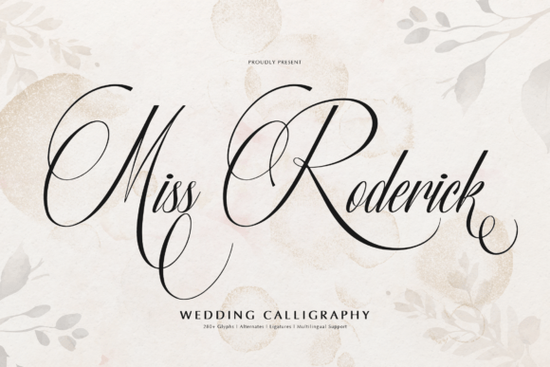
If you're looking for a font that exudes elegance and charm, Miss Roderick Font is an excellent choice. This stunning wedding calligraphy font is designed to add a touch of sophistication and romantic flair to any project. Whether you're designing formal invitations, elegant branding, or upscale stationery, Miss Roderick can help you create something truly special.
Why Choose Miss Roderick for Your Design Projects?
Miss Roderick stands out with its graceful loops, refined thin strokes, and high contrast lines. These features make it perfect for projects that require a touch of class and elegance. The font includes over 280 glyphs, stylistic alternates, ligatures, and multilingual support, making it both beautiful and versatile. It's an ideal choice for bridal suites, heartfelt quotes, and signature-style logos.
Perfect for Wedding Invitations
Wedding invitations are one of the most important elements of any wedding. They set the tone for the event and give guests a glimpse of what to expect. Miss Roderick is a fantastic option for creating invitations that are not just beautiful but also memorable. Its elegant style and romantic flair make it a top choice for designers and couples alike.
Versatility in Branding and Stationery
Beyond wedding invitations, Miss Roderick is versatile enough to be used in a variety of other design projects. For instance, it can add a touch of elegance to your branding materials, such as business cards, letterheads, and promotional materials. Additionally, it's perfect for creating upscale stationery, like thank-you notes, greeting cards, and more.
Stylistic Alternates and Ligatures
One of the standout features of Miss Roderick is its inclusion of stylistic alternates and ligatures. These options allow you to customize your designs and add unique touches. Stylistic alternates provide different versions of certain characters, while ligatures combine multiple characters into a single, fluid form. This flexibility makes it easier to create designs that feel personalized and polished.
Multilingual Support
In today's globalized world, having a font that supports multiple languages is a significant advantage. Miss Roderick includes multilingual support, making it a great choice for international projects. Whether you're designing for a local audience or a global one, this font can help you reach a wider range of people.
Comparison with Other Script Fonts
How to Use Miss Roderick in Your Designs
Incorporating Miss Roderick into your designs is straightforward. Here are a few tips to get you started:
- Choose the Right Context: Use Miss Roderick for projects that require a touch of elegance, such as wedding invitations, formal branding, and upscale stationery.
- Experiment with Stylistic Alternates and Ligatures: Take advantage of the font's stylistic alternates and ligatures to add unique and personalized touches to your designs.
- Combine with Complementary Fonts: Pair Miss Roderick with simpler, more legible fonts to create a balanced and visually appealing design.
- Test on Different Backgrounds: Make sure the font looks good on various backgrounds, whether it's a solid color, a pattern, or a photograph.
Practical Checklist for Using Miss Roderick
To ensure you get the most out of Miss Roderick, here’s a quick checklist:
- Experiment with different sizes and styles to find the best fit for your project.
- Use stylistic alternates and ligatures to add unique touches.
By following these steps, you can create stunning and elegant designs with Miss Roderick Font. Whether you’re a designer, crafter, or small business owner, this font is a valuable addition to your toolkit.